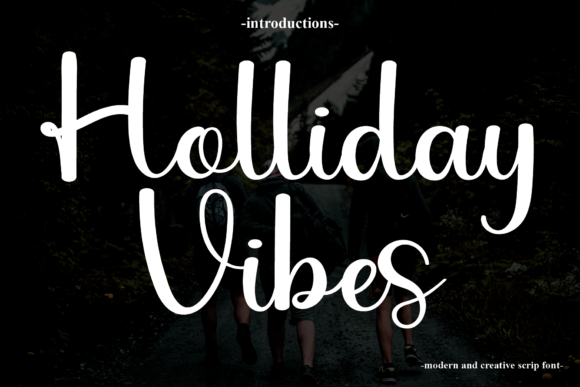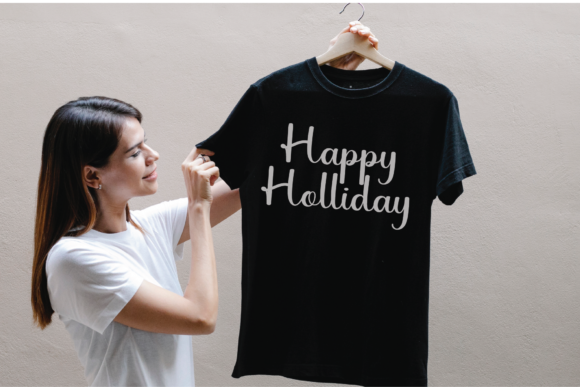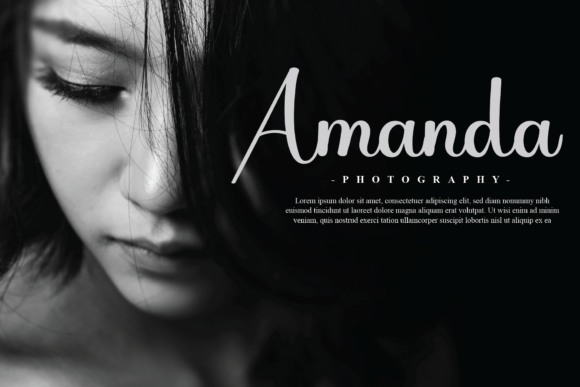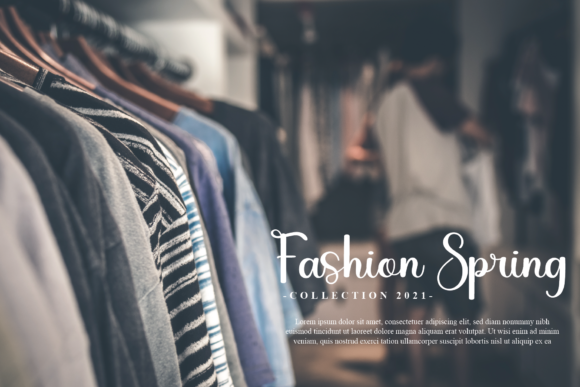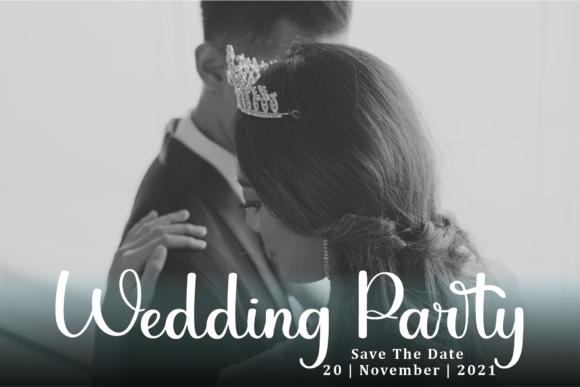
Holliday Vibes Font
About Holliday Vibes Font
Holliday Vibes is a stylish and delicate script font. Fall in love with its authentic feel and use it to create gorgeous wedding invitations, beautiful stationary art, eye-catching social media posts, and cute greeting cards.